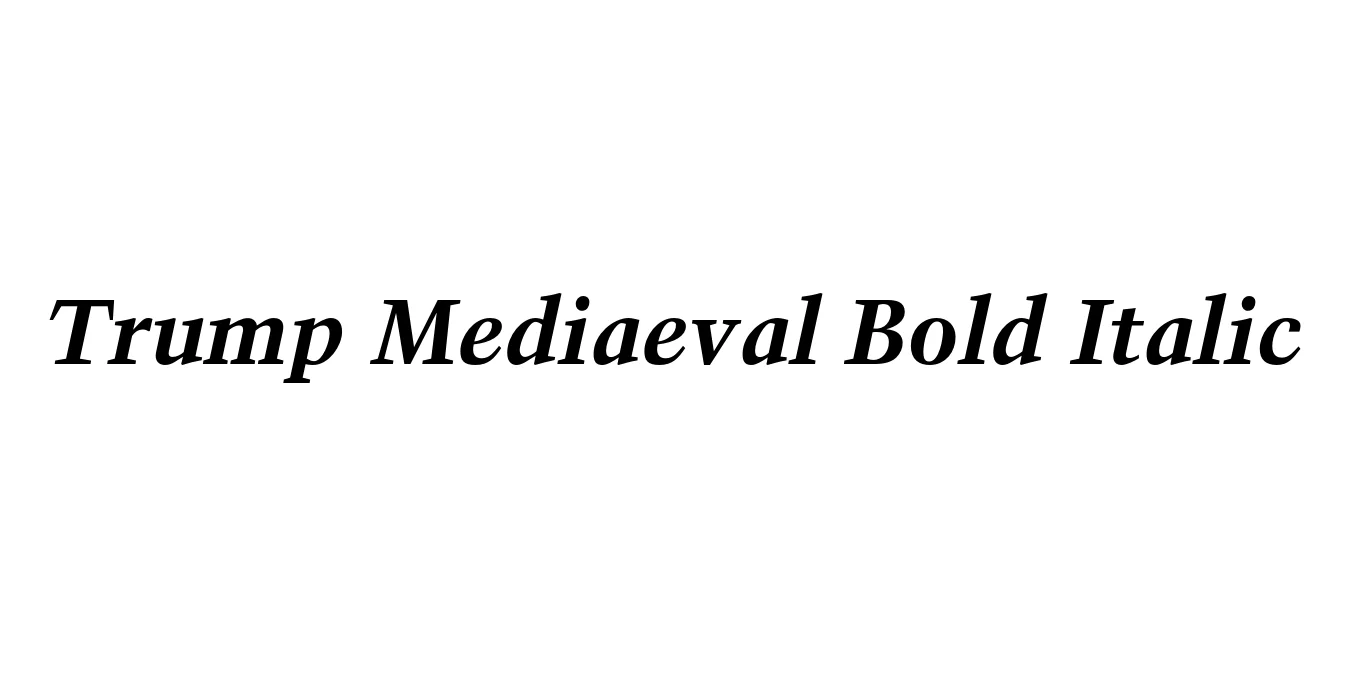
Trump Mediaeval Bold Italic
Designed by Georg Trump
| Category | Old Style Serif |
| Designer | Georg Trump |
| Similar Fonts | Palatino, Sabon, Minion, Aldus |
Trump Mediaeval Bold Italic was designed by the renowned German graphic artist Georg Trump in 1954 for the C.E. Weber foundry. This typeface is a unique interpretation of the old-style serif tradition, characterized by its sharp, angular terminals and incised quality rather than fluid calligraphic strokes. The Bold Italic weight provides a robust and dynamic presence on the page, offering a perfect balance between classical elegance and modern structural strength.
The design is celebrated for its exceptional legibility and distinctive personality, which sets it apart from more common Venetian or Garalde typefaces. Because of its strong horizontal stress and crisp details, it performs brilliantly in both high-quality print production and digital environments. It remains a staple for typographers who require a face that conveys authority, history, and a touch of mid-century German craftsmanship.
Trump Mediaeval Bold Italic Best Uses
Perfect for title pages, chapter headings, and emphatic text in literary works.
Highly effective for pull quotes and subheadings in premium magazine layouts.
Provides an authoritative and scholarly feel for journals and research papers.
Excellent for professional service firms looking for a timeless and established identity.